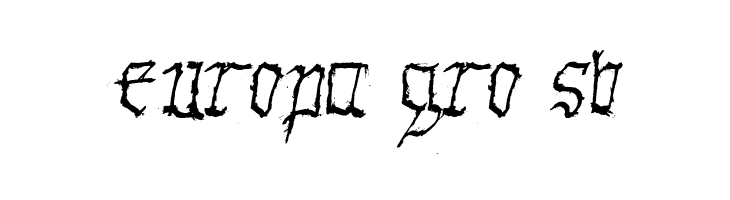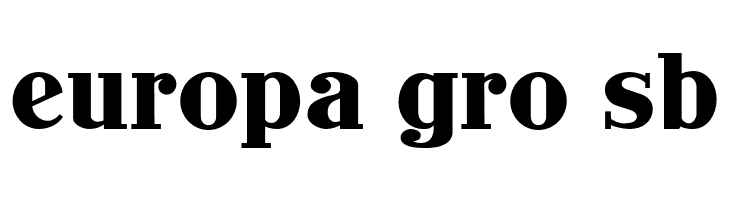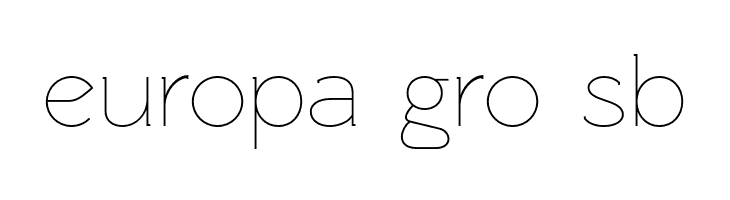
A bold, decorative font with thick, rounded strokes and a playful style.
A decorative font with medieval influences and angular serifs.
A Gothic-style font with a rough, distressed appearance and dynamic contrast.
A bold, high-contrast serif font with a classic yet modern style.
A bold, jagged, and dramatic font with a hand-drawn appearance.
A sleek, modern font with clean, geometric lines and a minimalist aesthetic.